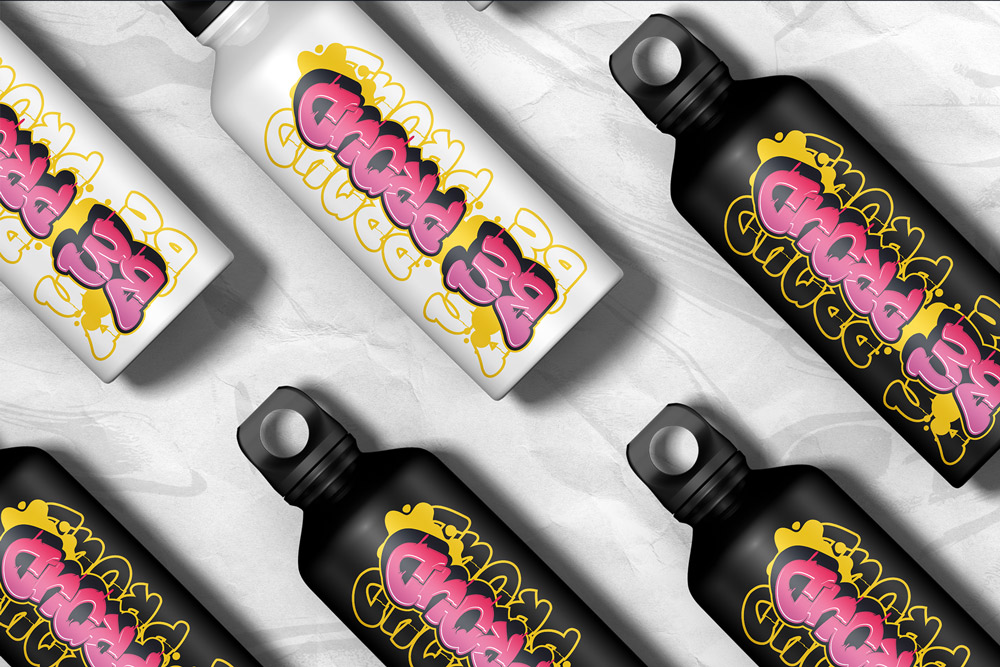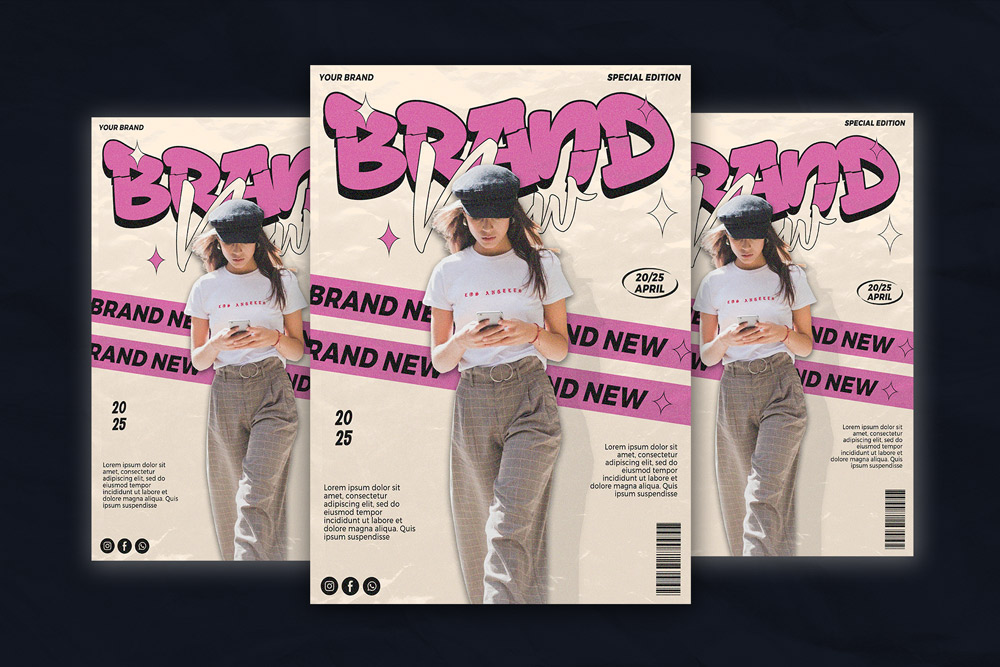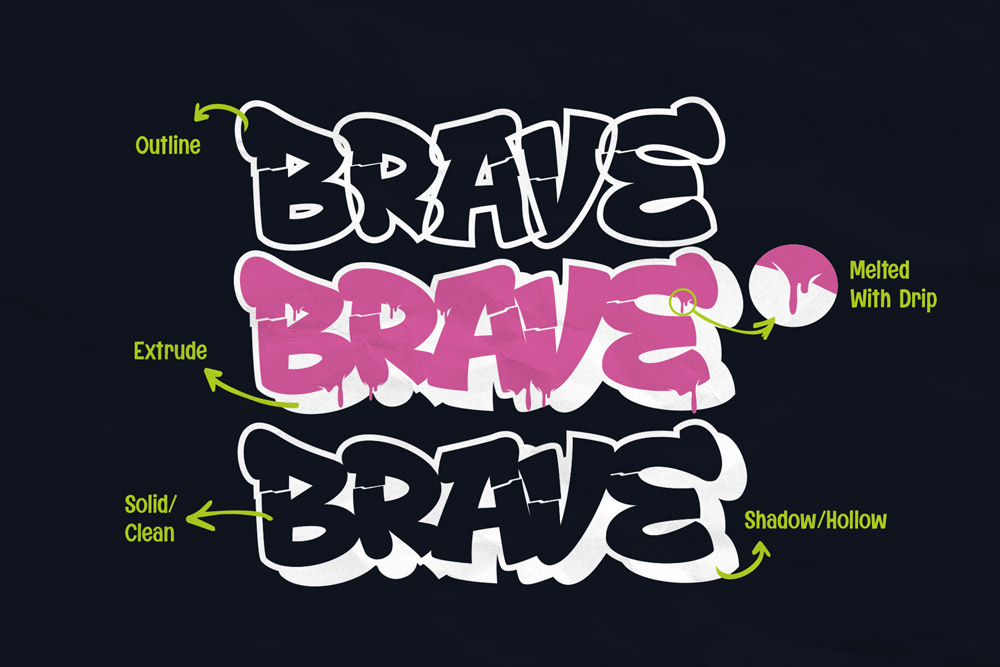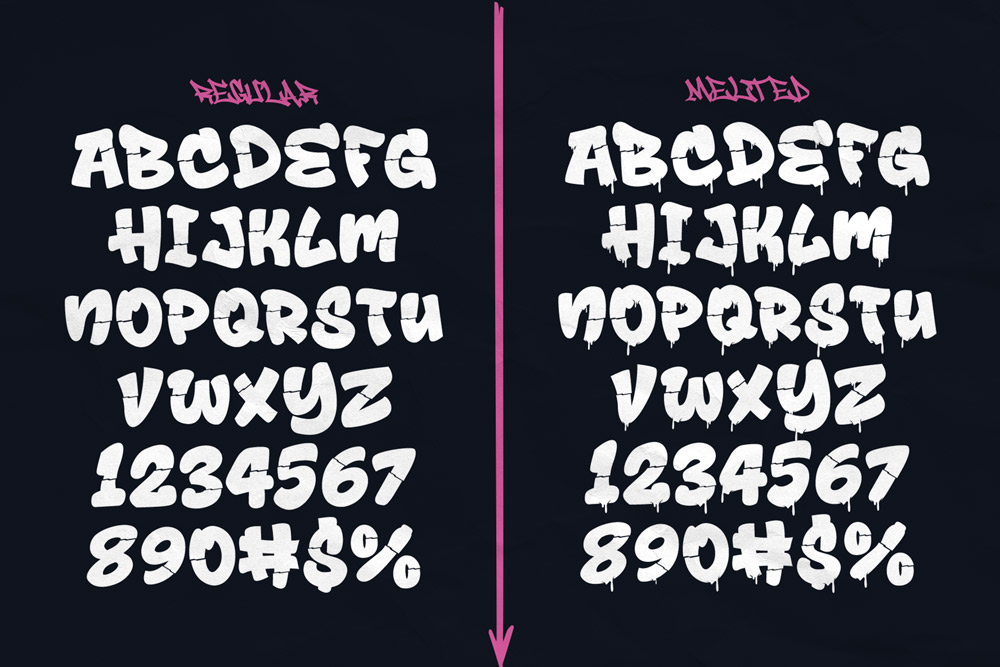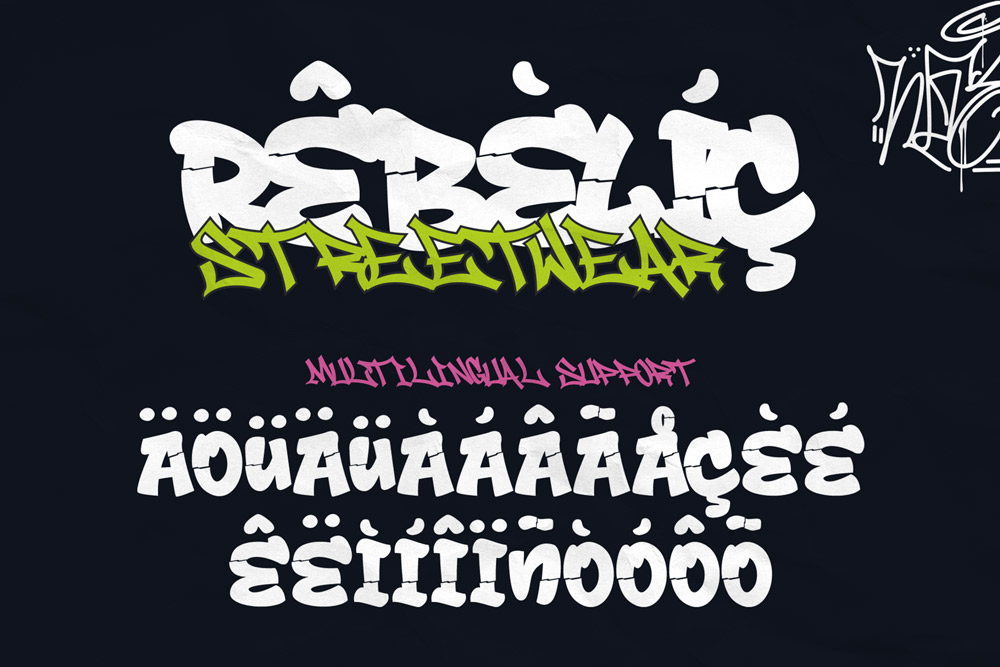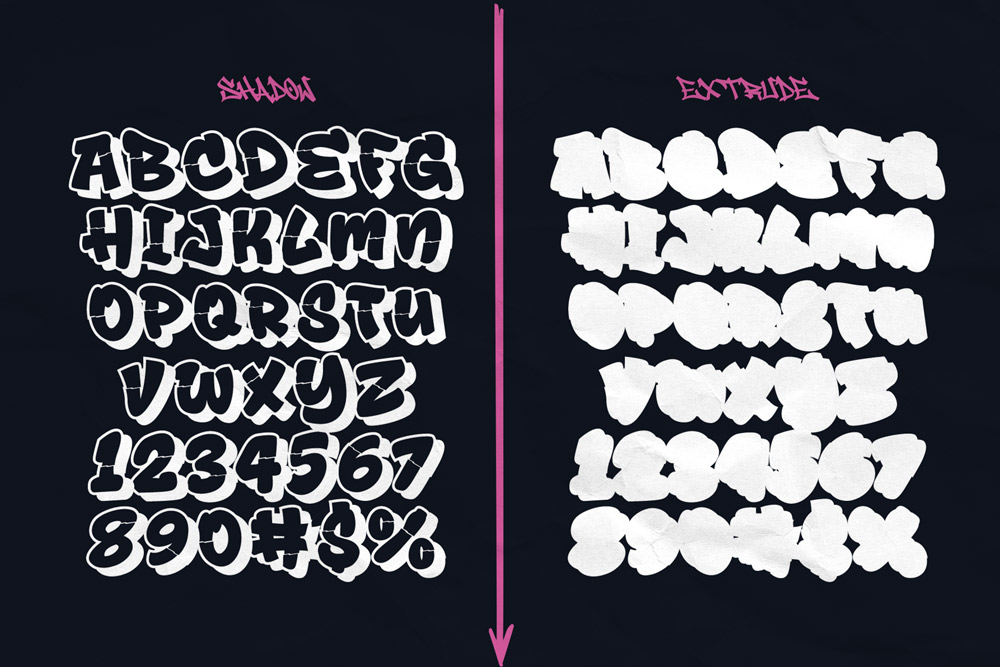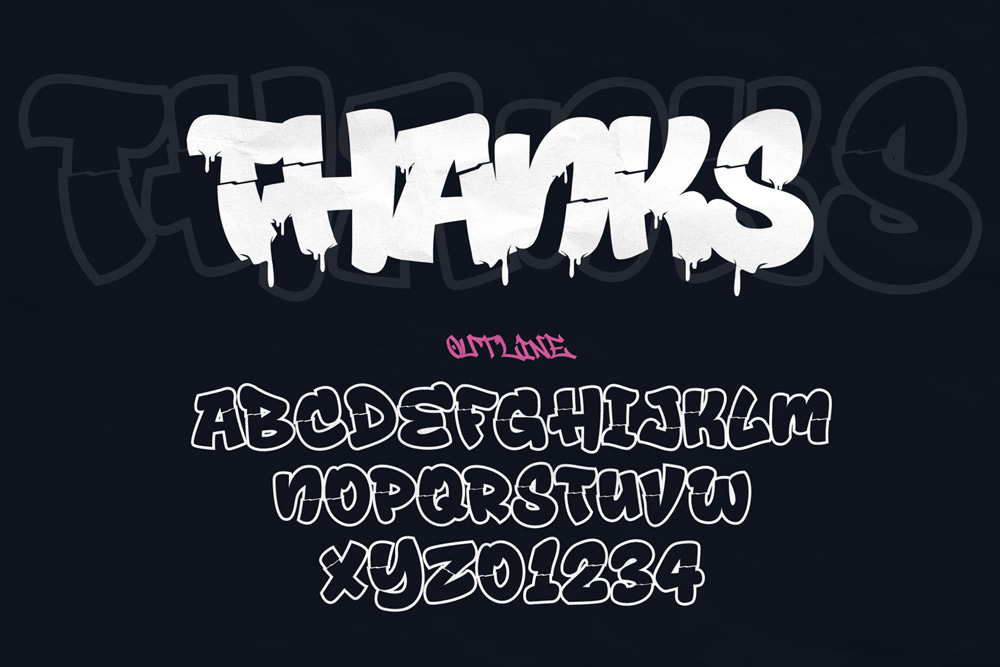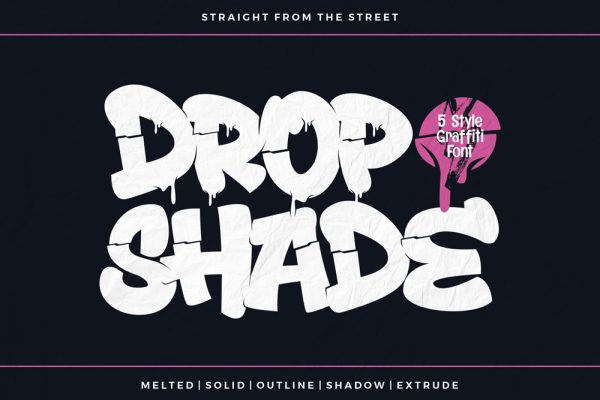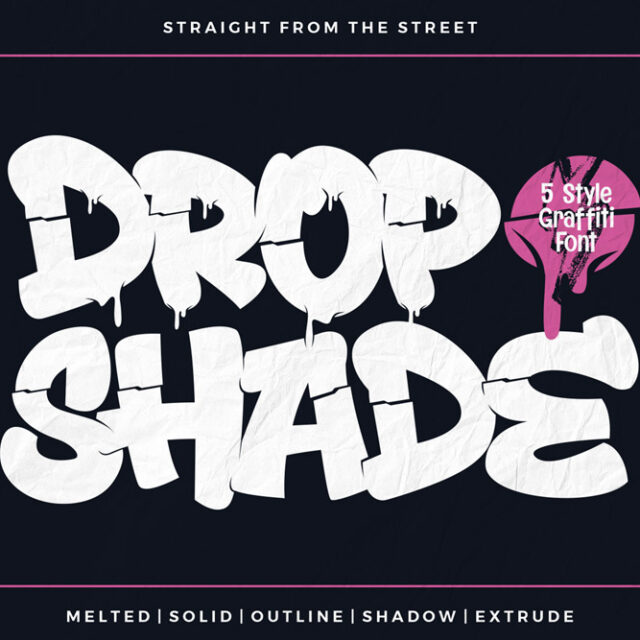
About Drop Shade
Turn Up the Heat with Drop Shade – A Melted 3D Graffiti Font with Uppercase Power and Multilingual Support
Drop Shade is a bold and expressive melted 3D graffiti font designed for designers, artists, and creators who want to push urban style to the next level. With its uppercase characters, dripping shapes, and dimensional effects, Drop Shade brings the look of melting paint and raw street energy into your design projects.
Packed with five unique styles—Clean, Melted, Outline, Extrude, and Shadow—Drop Shade is more than just a graffiti font. It’s a full graffiti type system built to dominate apparel designs, music promotions, posters, gaming logos, and digital artwork. Combined with multilingual support, this font is not only powerful but also global.
Five Styles Included for Maximum Creativity
Drop Shade gives you an arsenal of variations so you can switch between clean graffiti energy and bold dimensional effects.
Drop Shade Clean (OTF, TTF, WOFF) – The base version, bold and sharp, perfect for clear graffiti statements.
Drop Shade Melted (OTF, TTF, WOFF) – A dripping version with melted paint textures for raw, rebellious energy.
Drop Shade Outline (OTF, TTF, WOFF) – Contour lines that emphasize structure and work great for layering.
Drop Shade Extrude (OTF, TTF, WOFF) – Adds dimensional depth with 3D extruded shadows for a realistic effect.
Drop Shade Shadow (OTF, TTF, WOFF) – Built-in shading that gives your text instant weight and presence.
Each style is designed to work individually or in layered compositions, giving you endless graffiti design possibilities.
Key Features of Drop Shade – Melted 3D Graffiti Font
Uppercase Characters – Bold capital letters designed for maximum visibility.
Five Complete Styles – Clean, Melted, Outline, Extrude, Shadow.
Multilingual Support – Covers extended Latin alphabets.
Layer-Ready Graffiti System – Stack multiple versions for a dimensional effect.
Authentic Melted Look – Dripping version mimics real paint and spray art.
Perfect for Streetwear, Posters, Gaming, and More.
Why Designers Love Drop Shade
Designers love Drop Shade because it combines authentic graffiti aesthetics with practical design flexibility. While many graffiti fonts stick to one style, Drop Shade offers five distinct variations, each optimized for a different purpose.
The Clean version is perfect for bold logos, the Melted version adds rebellious drip textures, the Outline style emphasizes structure, and the Extrude and Shadow versions create layered 3D graffiti lettering without requiring extra tools.
This versatility makes Drop Shade a must-have for designers working across streetwear, music, gaming, and digital art industries. It’s graffiti reimagined as a professional design toolkit.
Perfect For Multiple Projects
Drop Shade is engineered for a wide range of creative applications:
Streetwear branding and apparel designs
Hip-hop and punk album covers
Underground music posters and festival flyers
Skateboard deck graphics and extreme sports merch
YouTube thumbnails, intros, and streaming overlays
Gaming logos and esports branding
Digital collages, zines, and urban artwork
Stickers, signage, and graffiti murals
Every project that needs bold urban energy will benefit from Drop Shade.
Graffiti Font with Multilingual Support
Street culture is global, and Drop Shade is designed to reach a global audience. With multilingual support, this font covers extended Latin characters, making it perfect for international projects. Whether you’re designing for a Spanish street brand, a French rap event, or a German skate competition, Drop Shade adapts while staying authentically urban.
For maximum impact, pair Drop Shade with Meltdown Phantom. Drop Shade delivers dimensional 3D style, while Meltdown Phantom adds raw handwritten drips—together they create explosive graffiti compositions perfect for urban branding and event graphics.
Why Drop Shade is a Must-Have Graffiti Font
If you want a graffiti font that gives you creativity, authenticity, and flexibility, Drop Shade is the perfect choice. Turn your words into art, melt the rules of design, and build an unforgettable style with Drop Shade – Melted 3D Graffiti Font.